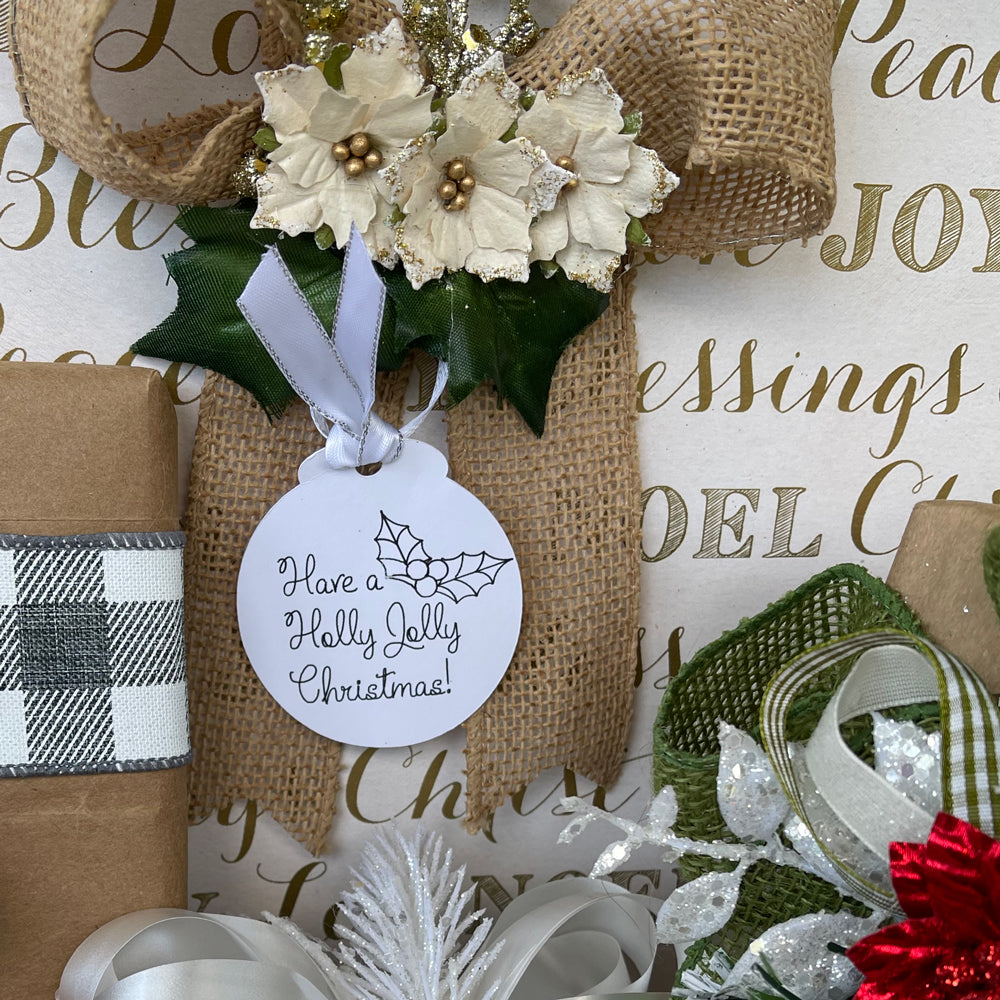
Single Line Font Options for the Holidays
The holiday season is upon us, and I’m excited to see the cards you all make using single line fonts! This year, we have increased our selection to include over 30 style options from formal, dressy styles to playful ones.
I used SLF Hand Lettered to create this gift tag set:
SLF White Linen is one of our most popular formal fonts, and it is a great choice for Christmas wedding invitations.
If you like the formal look, be sure to check out SLF Quill Pen and SLF RSVP. If you enjoy using a more playful style, our SLF Bonbon and SLF Pinwheel are great options.
It's hard to choose! You truly can't go wrong. For added interest, mix script and print-style font faces. Stay tuned for more on mixing fonts in a later blog post!